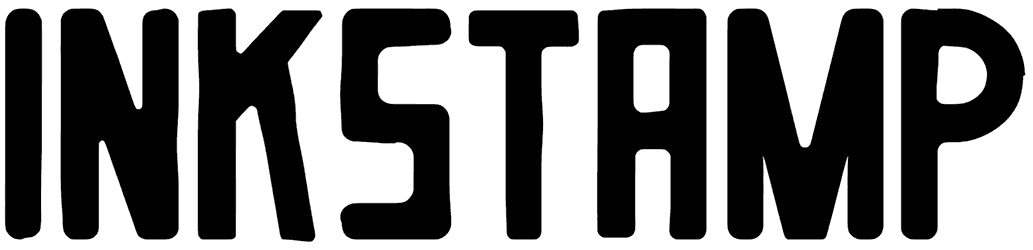
Inkstamp Font
Since the characters’ structure of this Inkstamp is in a moderate position, neither too modern nor too classic, it can be included in a wide set of graphic content ranging from movie posters, flyers, logos, and brochures, to the user interface of applications.
This all-caps block font shares a feeling of seriousness, precision, dynamism, or approachability. We strongly recommend you overlook the lack of numbers and pick up this geometric font for your editorial projects.